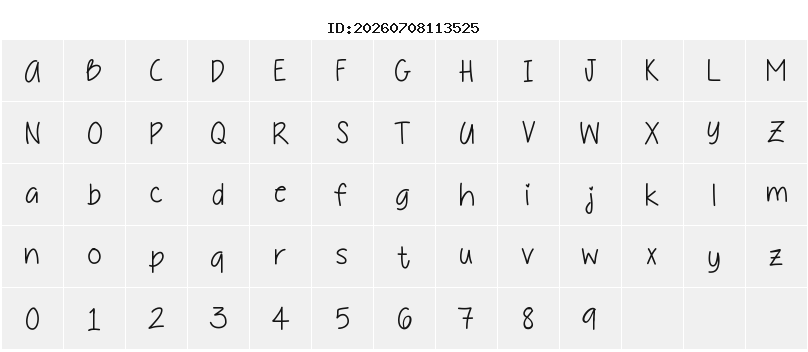
DaddysGirl Preview
• Font Name: DaddysGirl
• Full Font Name: DaddysGirl
About DaddysGirl.ttf
DaddysGirl.ttf is a modern, elegant sans-serif font designed for ultimate readability and visual harmony. Perfect for branding, headlines, web design, and print materials.